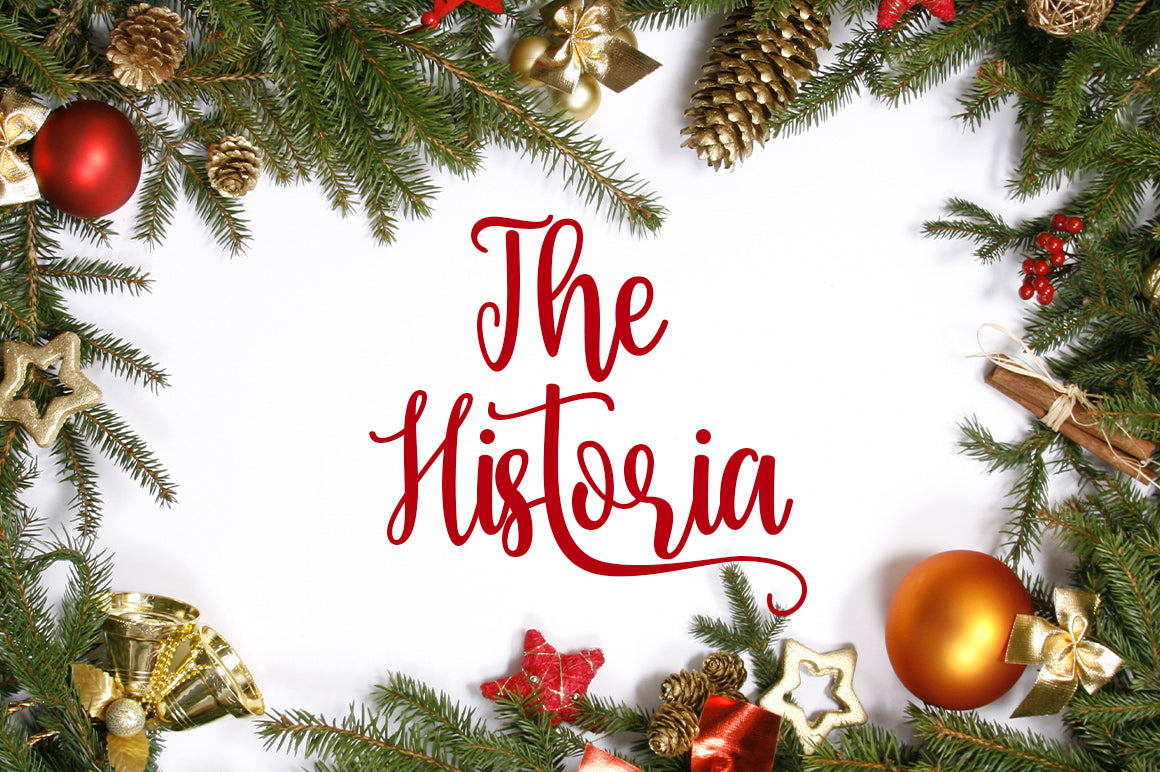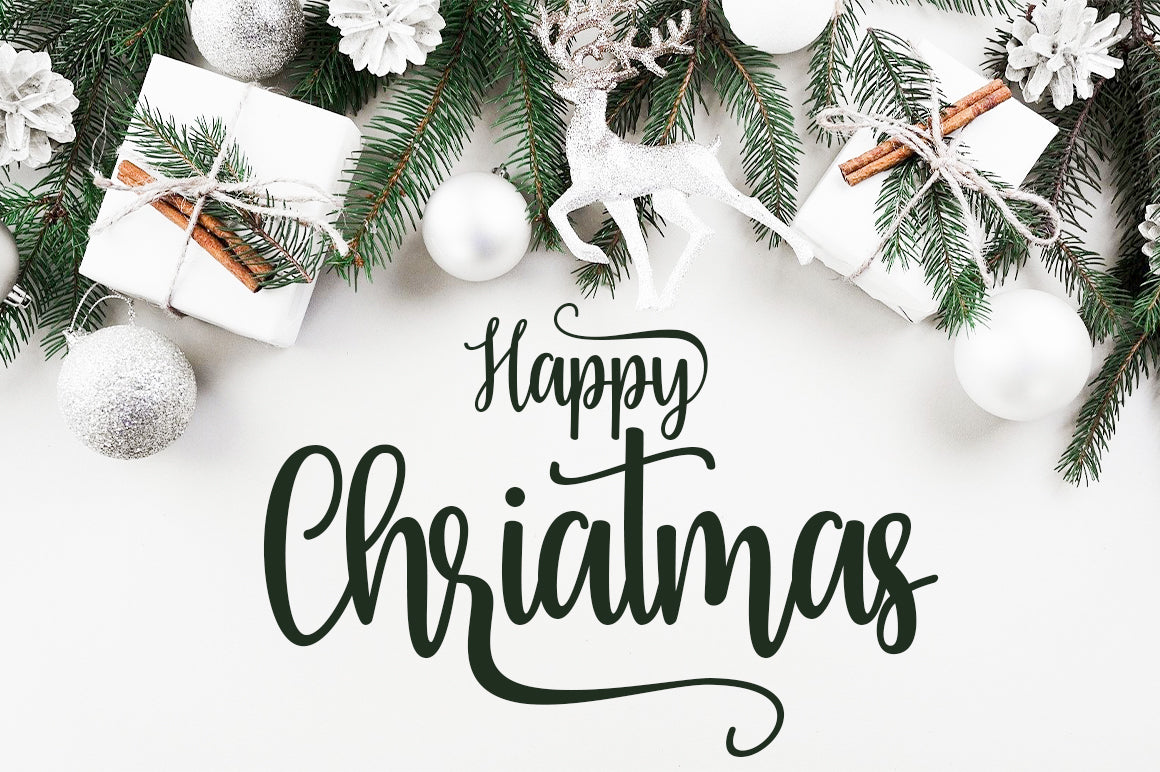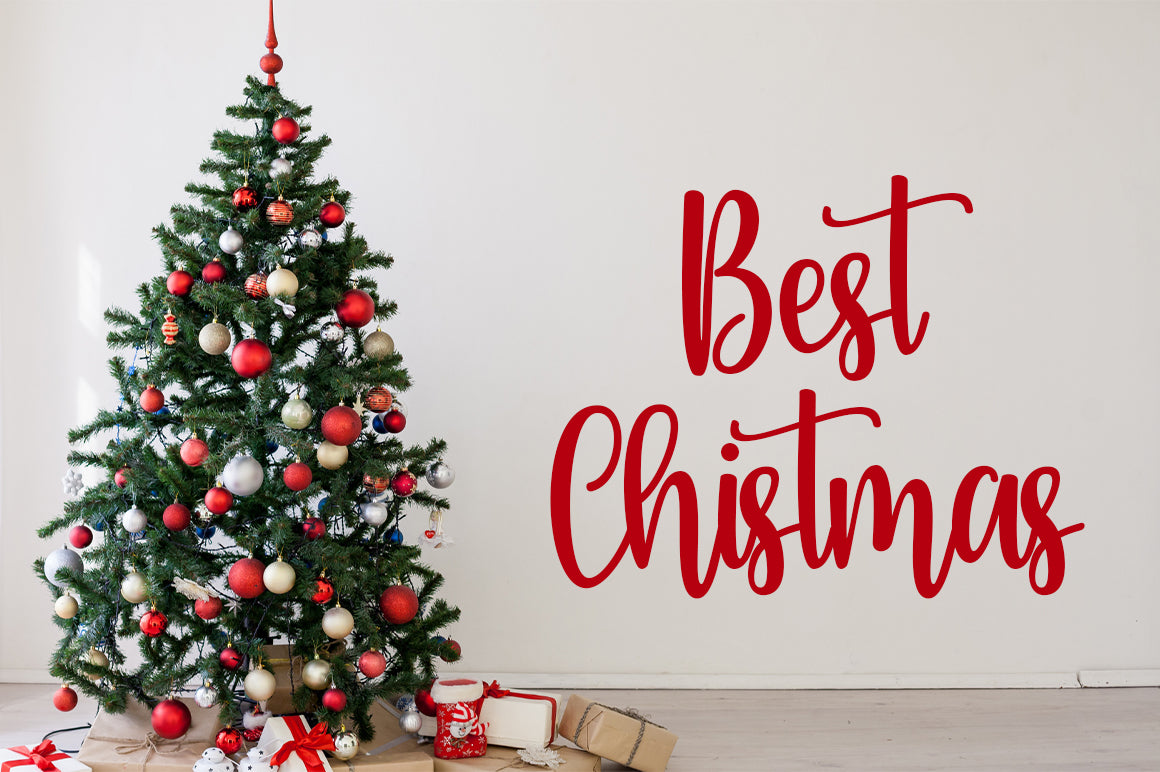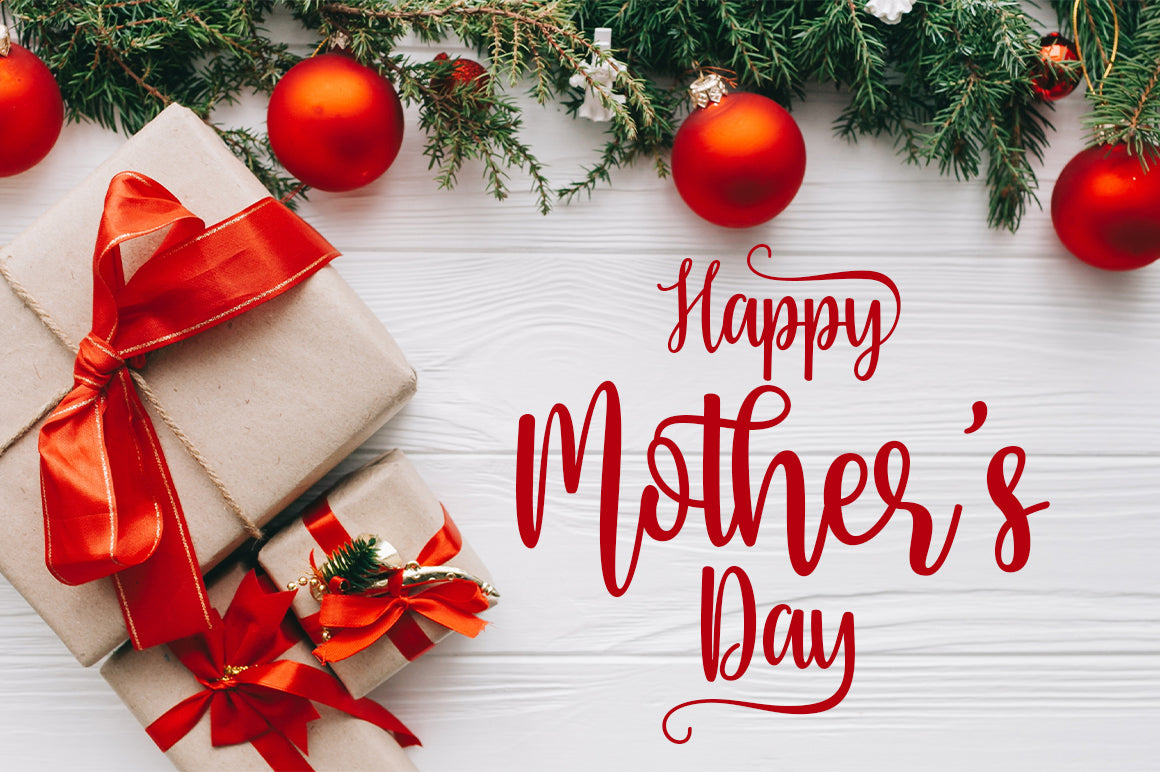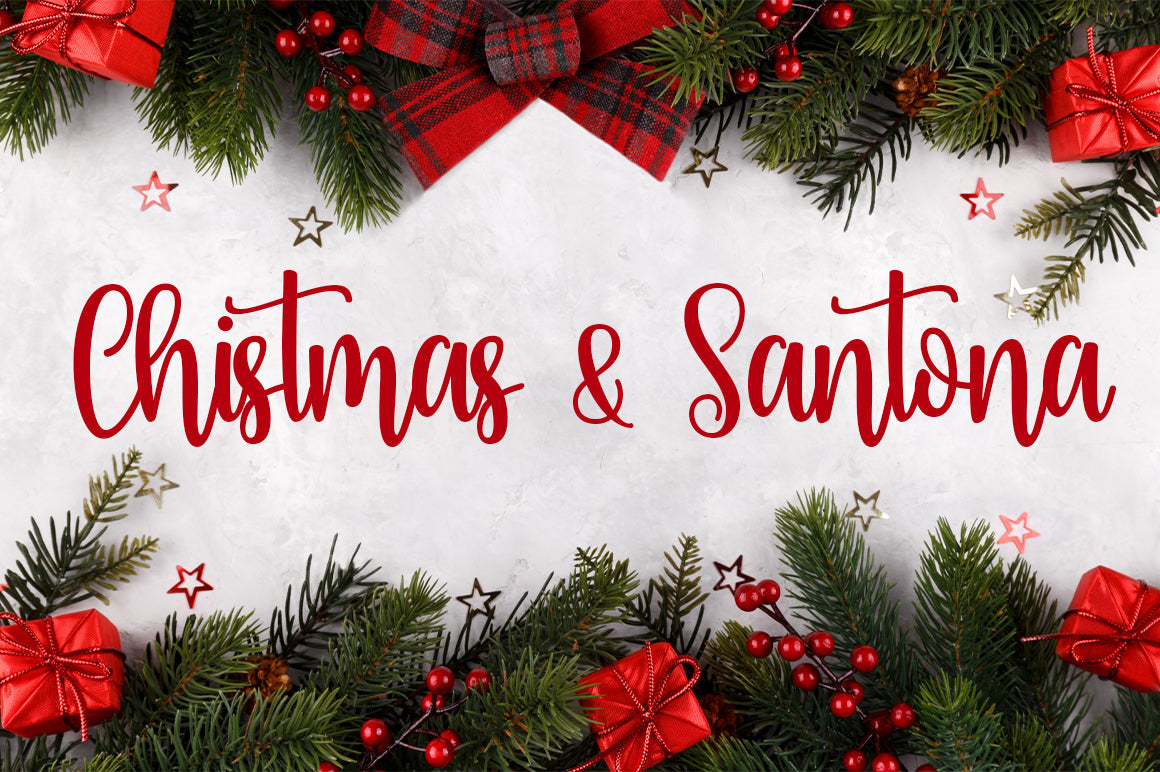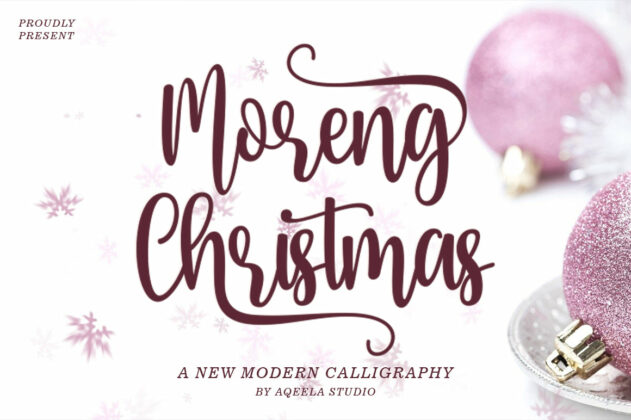
HomeScript FontsMoreng Christmas Script Fonts Moreng Christmas FacebookTwitterPinterestWhatsApp 1 of 6 ... ... ... ... ... ... About Moreng Christmas is an elegant script font with a contemporary feel and perfect form, inspired by a timeless classic calligraphy. This font is PUA encoded which means you can access all the glyphs and sweeps easily! DOWNLOAD NOW 9 0 People also explored Mid Century Sans Oriflamme Font Kindness Kern Font Amoodjy Font Aurantimaculata Font Fasifik Capture Font Farmhouse Lesley Lovely Font Arthur Font Anyone Font Beautiful Dreamer Font Midnight New Year Font TagsMoreng Christmas Previous articleBestore | Script FontsNext articleBubble Tea, Cute and Bouncy Font LEAVE A REPLY Cancel reply Comment: Please enter your comment! Name:* Please enter your name here Email:* You have entered an incorrect email address! Please enter your email address here Website: Save my name, email, and website in this browser for the next time I comment. Unlock Endless Creativity with the FREE September Clipart Huge Bundle (Valued at $700!) Personal Use Free Lanilla Personal Use Free Read more Shelly Personal Use Free Read more Zero Hour Personal Use Free Read more The Shocker Personal Use Free Read more BLOG Using Fonts in Digital Marketing: Tips to Strengthen Your Brand Identity In the realm of digital marketing, every visual element plays a crucial role in shaping a brand's identity, and fonts are no exception. The... Exploring Font Trends Transform Your Website: Elevate Your Typography with 7 Best Web Font Generators The 10 Best Handwriting Fonts to Add Personality to Your Designs